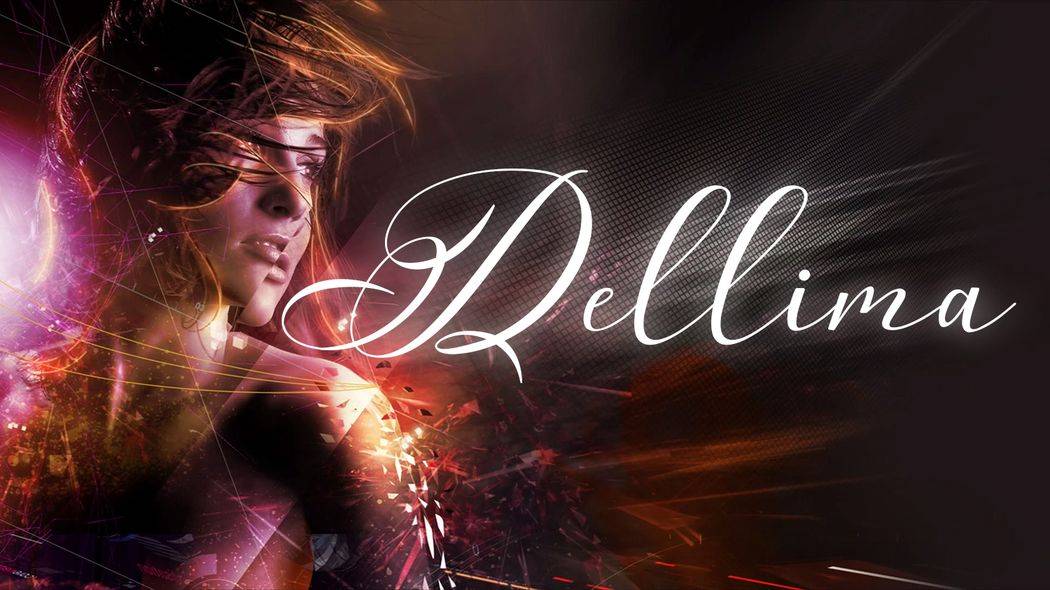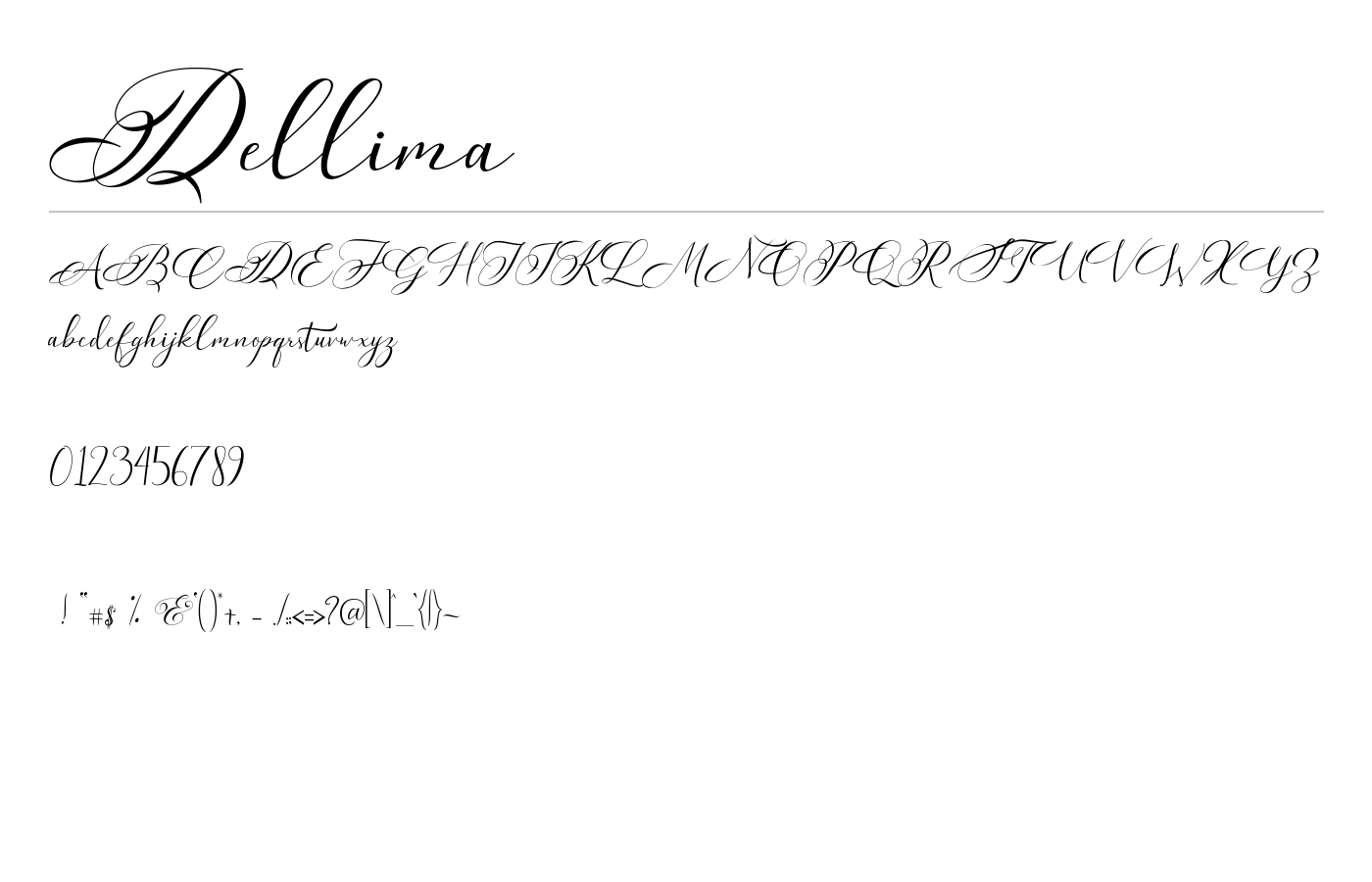
Dellima is a delicate and elegant script font characterized by fine, flowing strokes and graceful, ornamental uppercase letters that bring a sophisticated, handwritten feel. Its light weight and high contrast give it a refined luxury aesthetic, making it perfect for wedding invitations, luxury branding, and formal event graphics where a touch of classic elegance is desired.